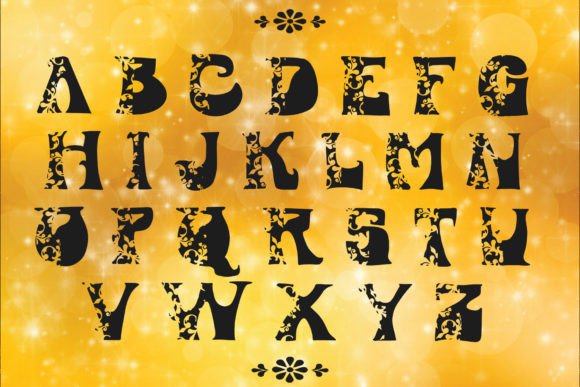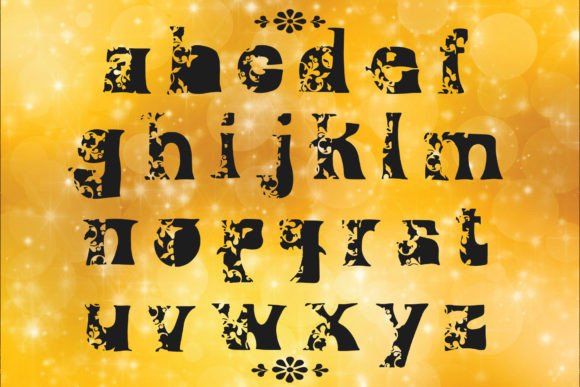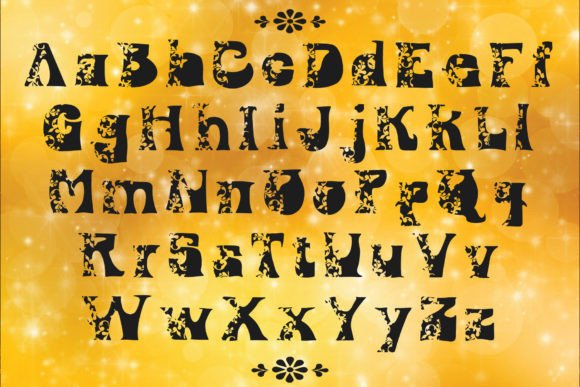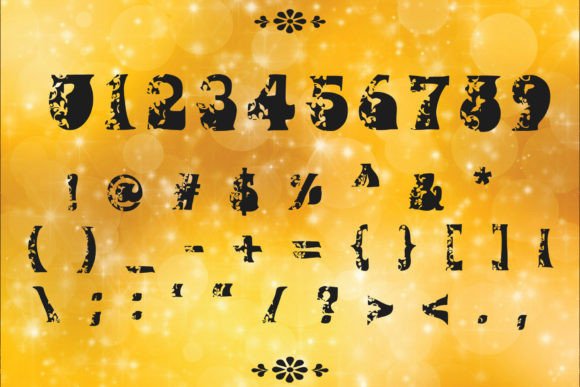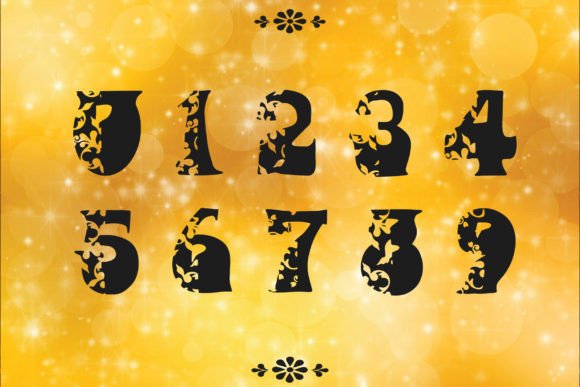
Introduction to Louise Groovy Font
Louise Groovy is a fun, retro, and whimsical decorative font.
Key Features of Louise Groovy Font
Why Choose Louise Groovy Font?